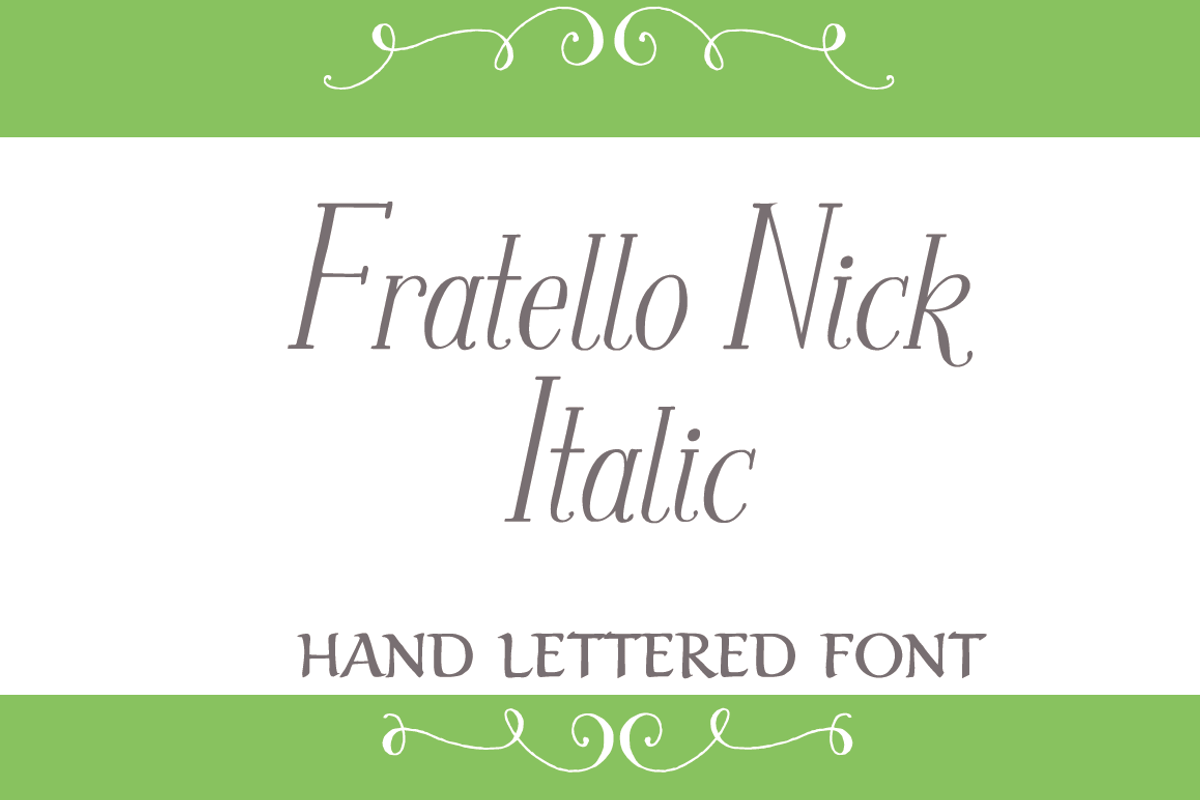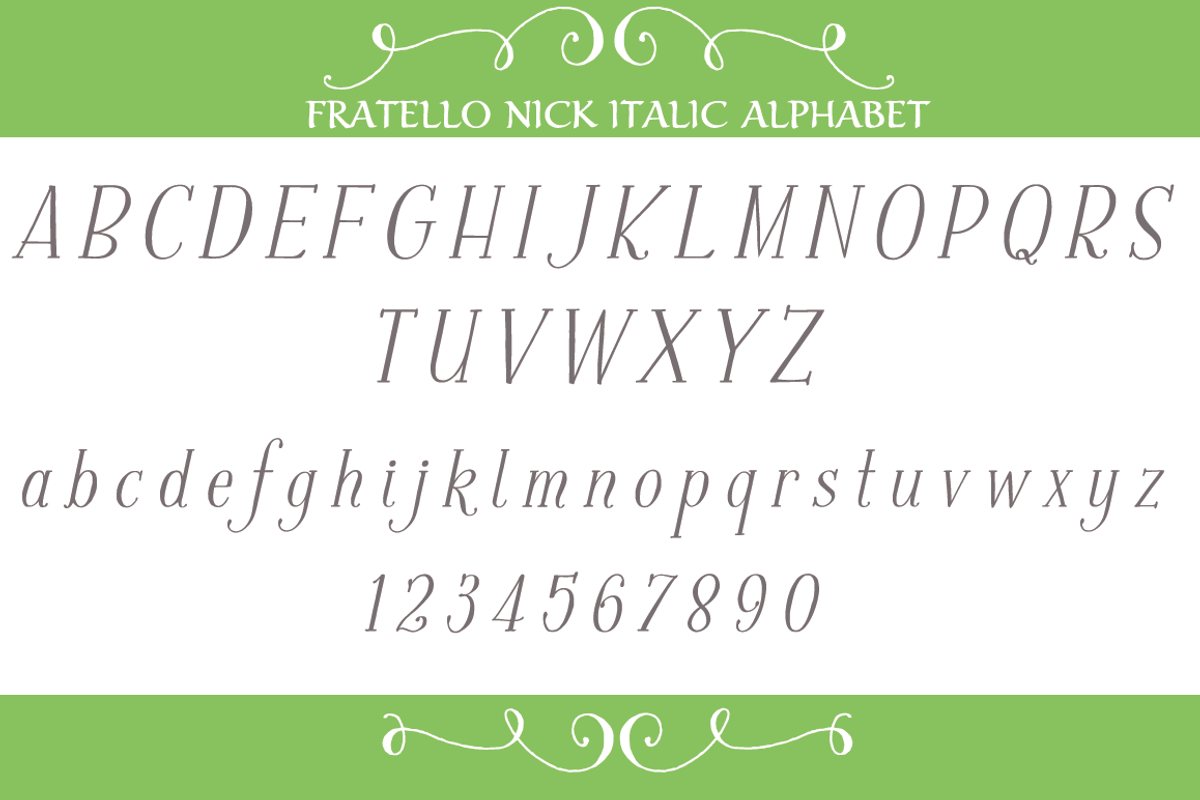
Sale-Fratello Nick Italic Font
Sale-Fratello Nick Italic Font by Debi Sementelli is a font selected for branding, posters, packaging, typography.
- Fratello Nick Italic
Why Sale-Fratello Nick Italic Font is worth a look
Sale-Fratello Nick Italic Font by Debi Sementelli fits naturally into Branding, posters, packaging, typography.